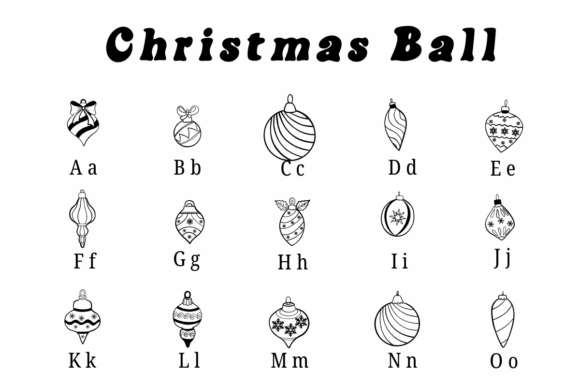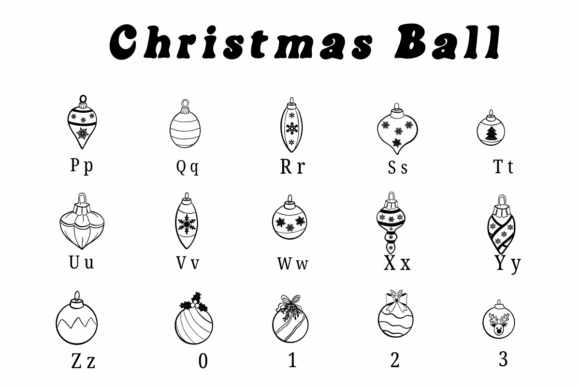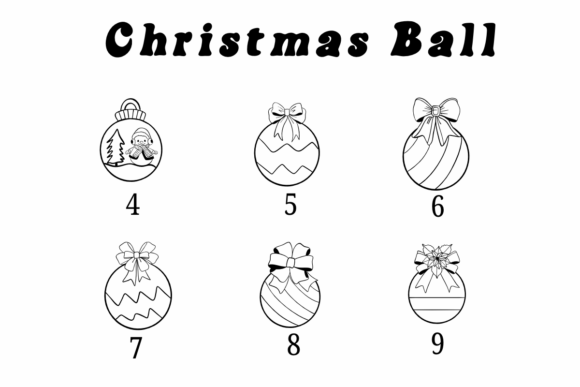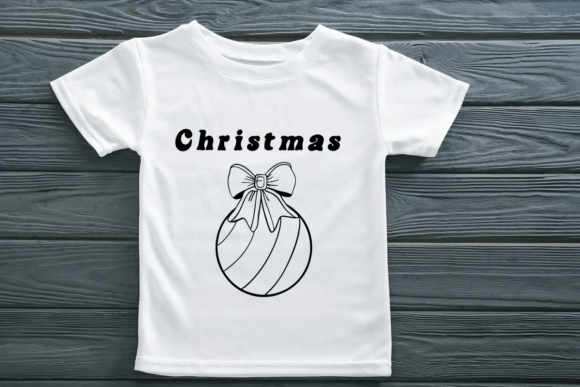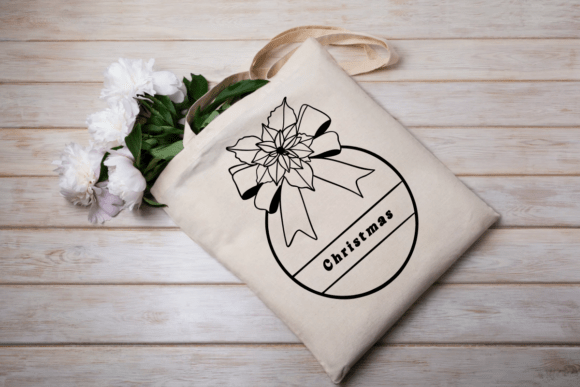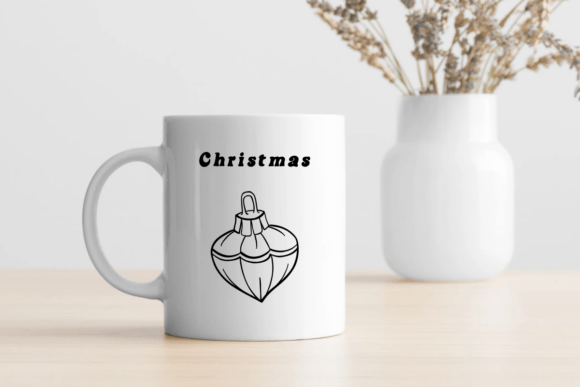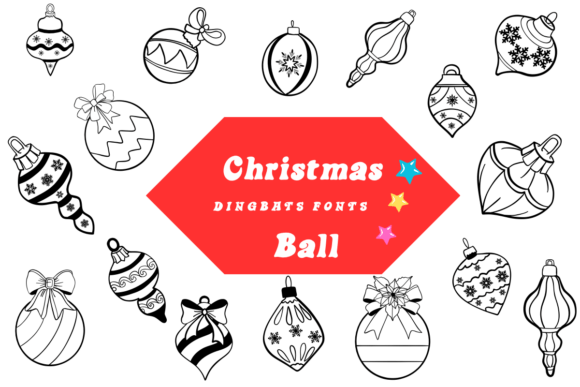
Christmas Ball Font: Add a Touch of Festive Fun to Your Designs
Are you looking for a font that embodies the spirit of Christmas? Look no further than the Christmas Ball Font! This adorable dingbats font is perfect for designers and crafters who want to add a touch of festive fun to their creative projects. In this article, we’ll take a closer look at the Christmas Ball Font, its features, and how you can use it to make your designs merry and bright.
What is Christmas Ball Font?
Christmas Ball Font is a unique dingbats font that features illustrations of Christmas balls, trees, snowflakes, and other festive icons. The font is designed to be cute and playful, making it perfect for holiday-themed designs, such as Christmas cards, decorations, and gift tags. The font is easy to use and can be installed on your computer or used online, making it accessible to designers and crafters of all levels.
Features of Christmas Ball Font
The Christmas Ball Font has several features that make it a great addition to your design toolkit. Some of its key features include:
- Cute and festive designs: The font features a range of festive illustrations, including Christmas balls, trees, snowflakes, and more.
- Scalable: The font is scalable, making it perfect for use on a range of design projects, from small gift tags to large banners.
How to Use Christmas Ball Font
Using the Christmas Ball Font is easy! Here are a few ways you can incorporate it into your designs:
- Holiday cards and invitations: Use the font to create festive holiday cards and invitations that will delight your friends and family.
- Christmas decorations: Use the font to create custom Christmas decorations, such as gift tags, garlands, and banners.
- Social media graphics: Use the font to create festive social media graphics, such as Christmas-themed Facebook posts and Instagram stories.
- Digital papers and scrapbooking: Use the font to create digital papers and scrapbooking pages that are perfect for holiday-themed projects.
Tips and Tricks for Using Christmas Ball Font
Here are a few tips and tricks for getting the most out of the Christmas Ball Font:
- Experiment with different colors and textures: Use different colors and textures to give your designs a unique and festive look.
- Combine with other fonts: Combine the Christmas Ball Font with other fonts to create a unique and eye-catching design.
- Use on a range of design projects: Use the font on a range of design projects, from small gift tags to large banners.
The Christmas Ball Font is a fun and festive dingbats font that’s perfect for designers and crafters who want to add a touch of holiday cheer to their designs. With its cute and playful illustrations, ease of use, and scalability, this font is sure to become a favorite in your design toolkit. So why wait? Download the Christmas Ball Font today and start creating your own festive designs!